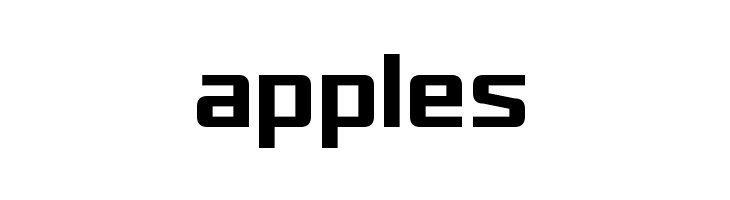
• Monkirta Pursuit NC
( Font by Jayvee D. Enaguas - grandchaos9000.deviantart.com )
A bold, modern font with geometric lines and consistent stroke width.